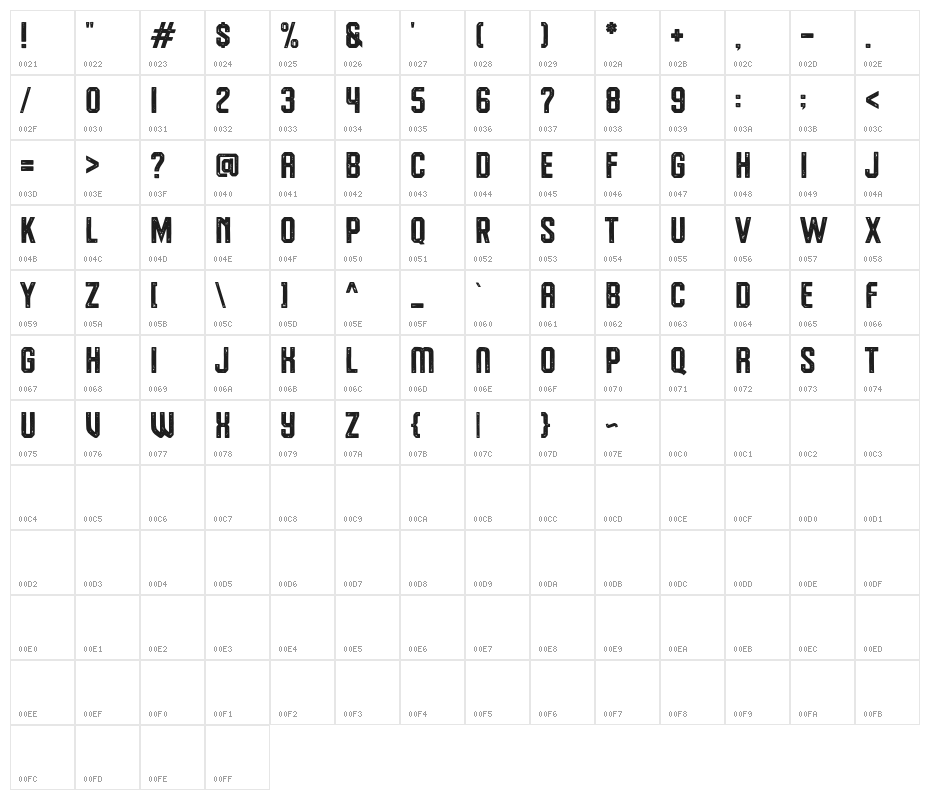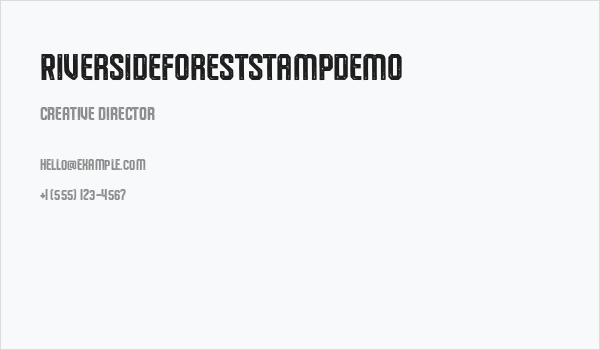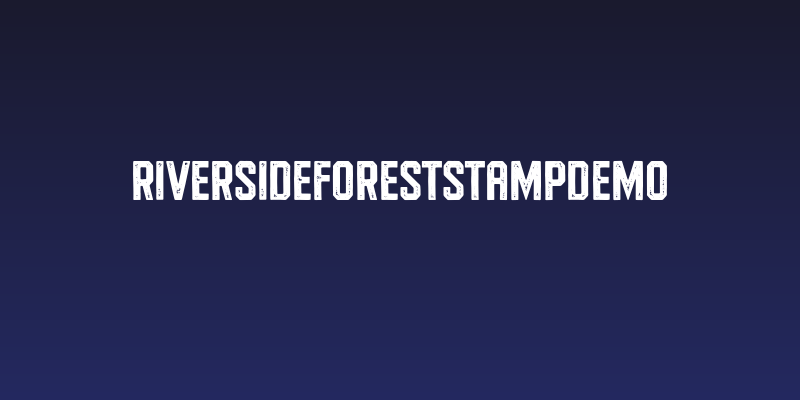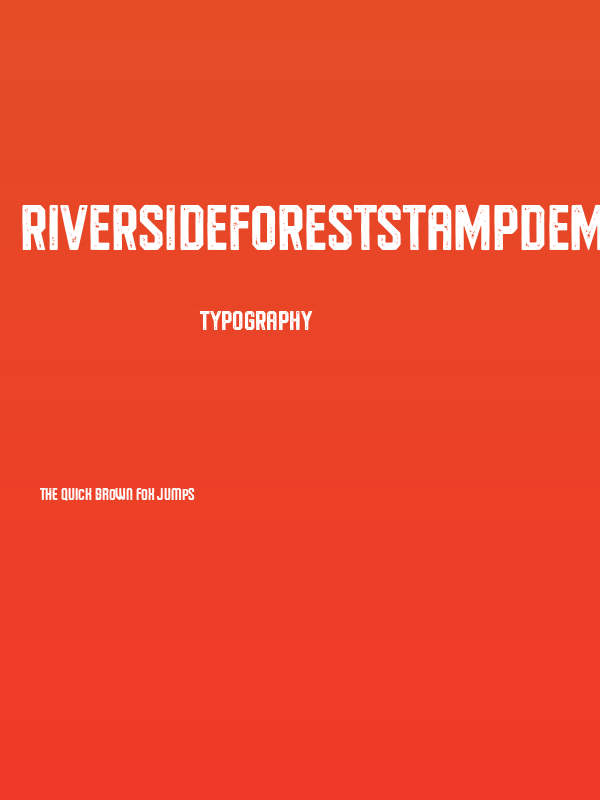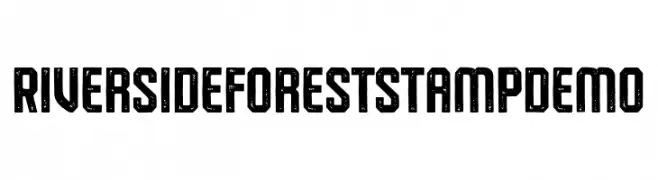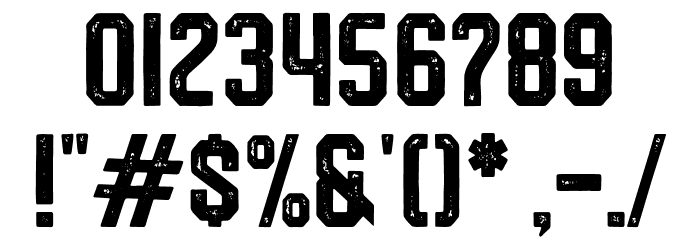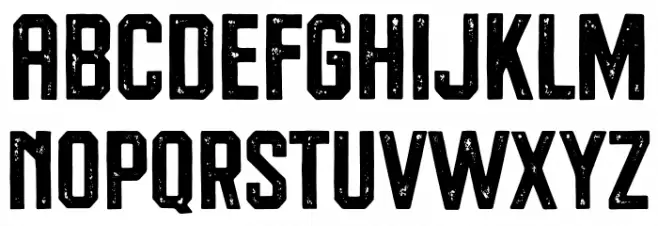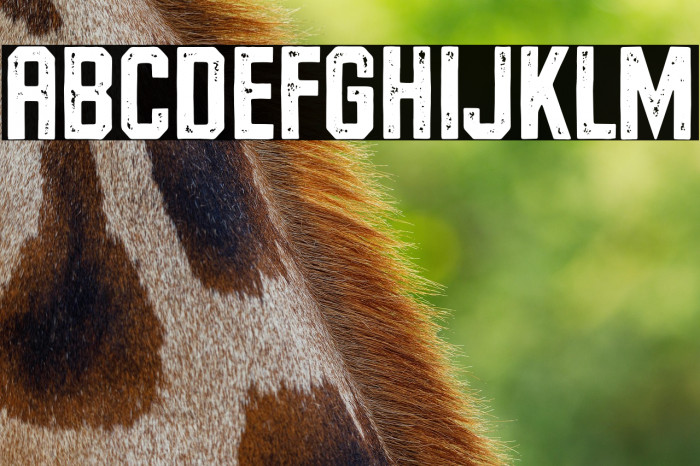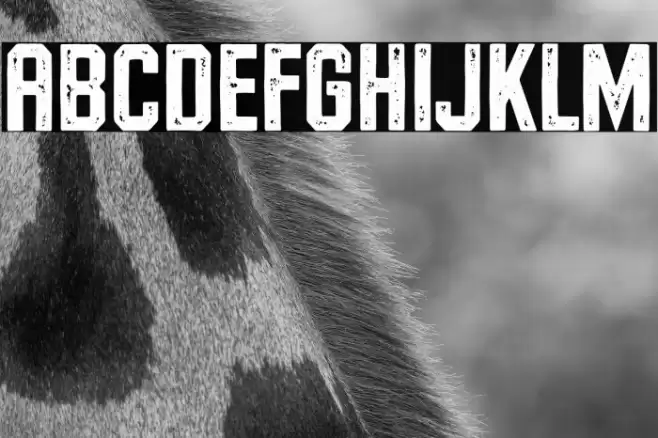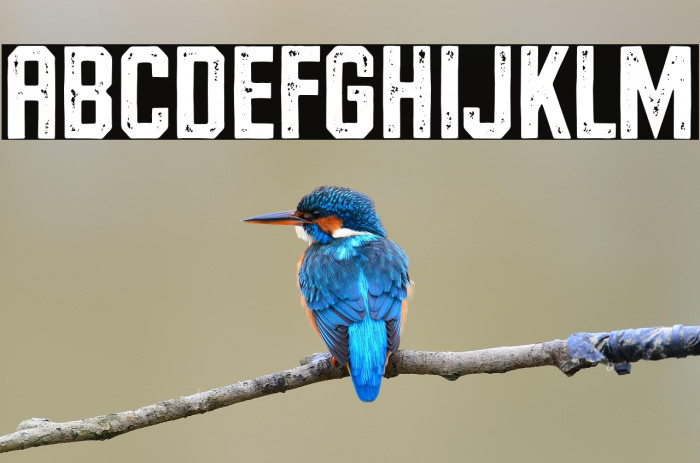
RiversideForestStampDemo Font
| Proiecte propuse | Ideal for vintage-themed posters, branding for rustic or outdoor products, and any design needing a bold, nostalgic touch. |